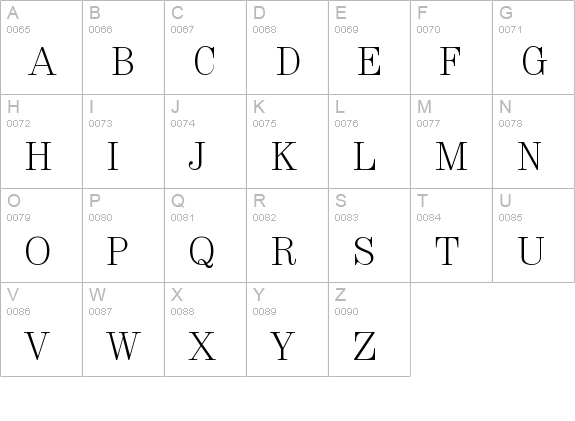
ValenciaSerial-Xlight-Regular Font Details
ValenciaSerial-Xlight-Regular is the standard, neutral variant in the ValenciaSerial typeface family \xE2\x80\x94 well suited to general body text, paragraphs, and standard typographic work.
ValenciaSerial-Xlight-Regular is a modern and elegant typeface that exudes sophistication and versatility. With its sleek and clean design, this font is perfect for a wide range of design projects, from branding and advertising to editorial and web design. The thin strokes and subtle curves of ValenciaSerial-Xlight-Regular give it a contemporary and stylish look that is sure to make your text stand out. What makes ValenciaSerial-Xlight-Regular even more appealing is that it is available for free download at FontsMarket.com. This means that you can easily access and use this beautiful font in your projects without any cost. Whether you are a designer looking for a fresh and modern typeface or a business owner wanting to enhance your branding, ValenciaSerial-Xlight-Regular is the perfect choice. Download it today and elevate your design work to new heights with this stunning font.